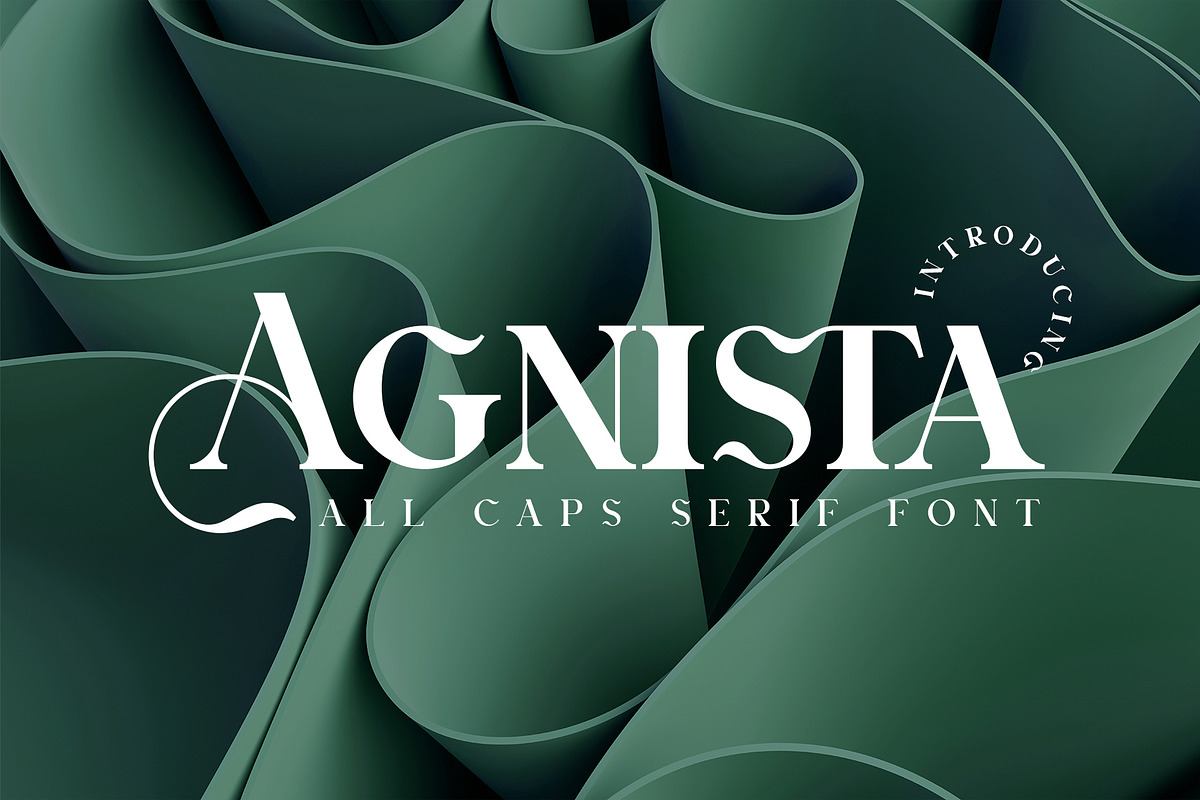
Agnista All Caps Serif Font Free Download is a powerful and elegant typeface that exudes sophistication and structure. Featuring sharp serifs and a confident, all-uppercase design, this font is perfect for luxury branding, editorial headlines, product packaging, fashion lookbooks, and high-impact logos.
Whether you're creating a premium identity or a minimalist layout with a bold twist, Agnista offers timeless elegance and modern edge in one cohesive typeface. Its clean lines and commanding presence make it an essential serif font for standout visual design.